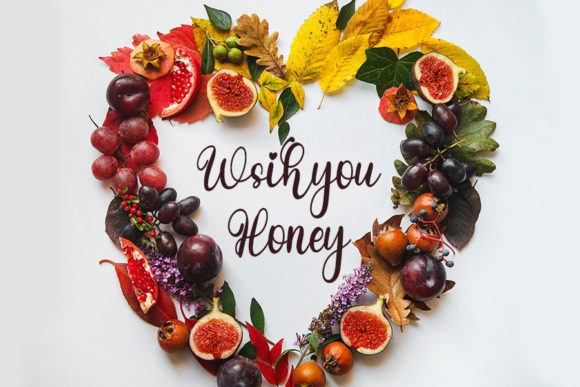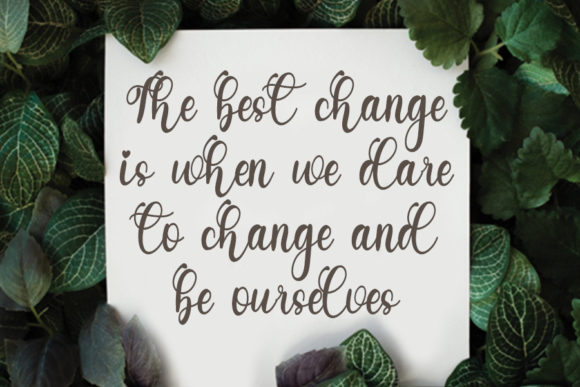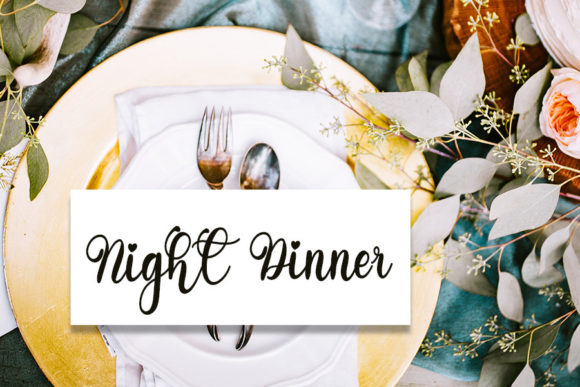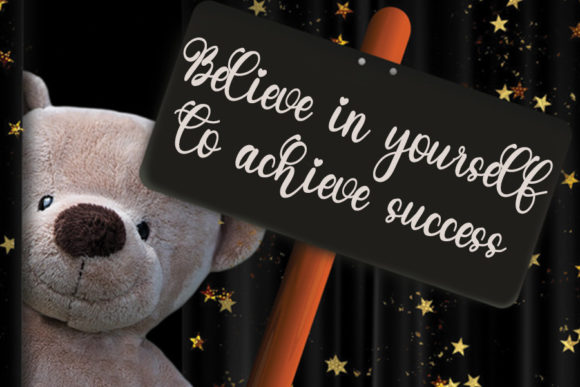
Hello Dellica Font
About Hello Dellica Font
Hello Dellica is a chic and ravishing script font, that exudes elegance and class. This font was particularly crafted for those who need a beautiful and refreshing look to their designs.